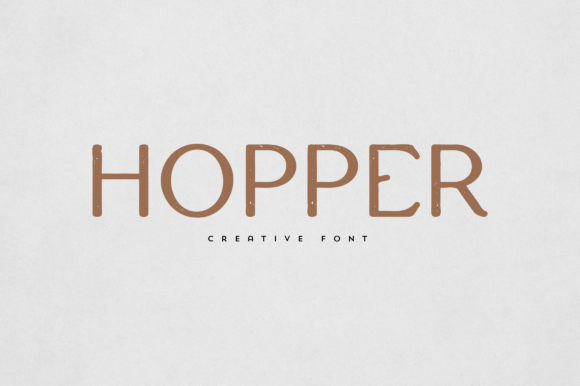
The Magic of Typography: Discovering the Hopper Font
Have you ever stared at a beautiful design and wondered what makes it so captivating? For designers, it’s often the subtle nuances that elevate a project from good to great. One of those subtle yet powerful elements is the choice of font. In the world of typography, the right font can transport your message, evoke emotions, and leave a lasting impression.
Enter the Hopper Font, an elegant and versatile font that will make your typography truly unique. Whether you’re crafting a logo, branding a product, or creating a stunning magazine header, Hopper Font is the perfect companion. Its versatility and sophistication make it an invaluable asset for designers, allowing you to add a touch of magic to any project. With Hopper Font, the possibilities are endless, and your designs will thank you.
Hopper Font Key Features
- Unique Characteristics: Hopper Font features a unique blend of modern and vintage elements, with a geometric sans-serif design and subtle rounded edges.
- Font Metrics: The font has an x-height of 0.5, with a cap height of 1.2 and a descender height of 0.6, providing a balanced and readable typographic experience.
Hopper Font Review
I recently had the chance to dive into the Hopper Font, and I must say, it’s a delightful addition to any designer’s toolkit. ✨ The font’s unique blend of modern and vintage elements makes it perfect for a wide range of projects, from logos to magazine headlines.
Here are some of the things I love about Hopper Font:
- ✨ Unique aesthetic: Hopper Font’s blend of modern and vintage elements sets it apart from more traditional fonts.
- ✨ Versatile: Whether you’re designing a logo, a magazine headline, or a website, Hopper Font has got you covered.
- ✨ High-quality: The font is well-designed, with clear and readable letterforms.
However, there are some limitations to keep in mind:
- ⚠️ Limited language support: Hopper Font currently only supports a limited number of languages, which may be a concern for designers working on international projects.
- ⚠️ Limited font weights: While Hopper Font has a good range of font weights, it’s not as extensive as some other fonts on the market.
Overall, I’m impressed with Hopper Font. While it may have some limitations, its unique aesthetic and versatility make it a great addition to any designer’s toolkit. With a little more development, I think Hopper Font could become a go-to font for designers of all levels.
Getting the Most Out of Hopper Font
To get the most out of the Hopper Font, try using it in combination with bold or italic styles to create visual interest.
Experiment with different font sizes to emphasize key points or create a hierarchy of information.
The Hopper Font is ideal for use in:
– Blog posts and articles
– Business presentations and reports
– Branding and marketing materials
Alternatives to Hopper Font
Great Vibes Font is a modern, cursive script font. It is ideal for use in headings, titles, and quotes, where you want to add a touch of elegance and sophistication. Great Vibes Font is similar to Hopper Font in its playful and whimsical feel, but it has a more refined and sophisticated look.
Alex Brush Font is a beautiful, handwritten script font. It is perfect for use in invitations, greeting cards, and other personal stationery, where you want to add a personal touch. Alex Brush Font is similar to Hopper Font in its organic and natural feel, but it has a more delicate and refined look.